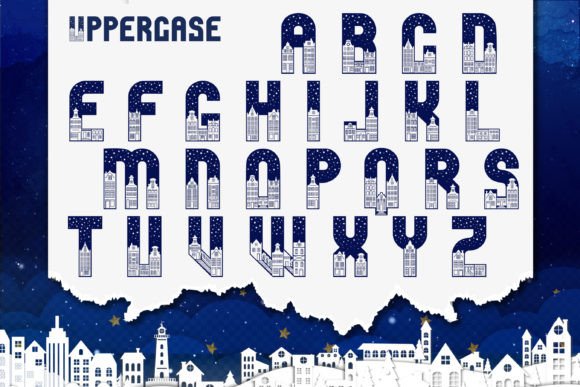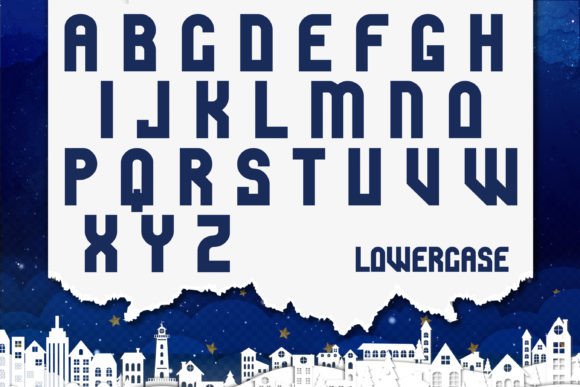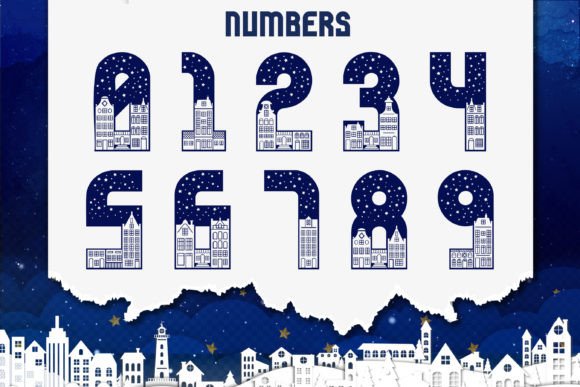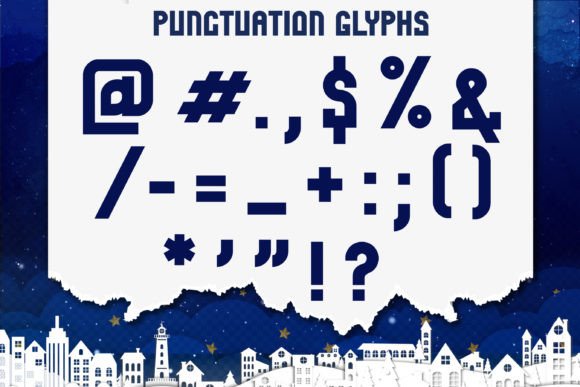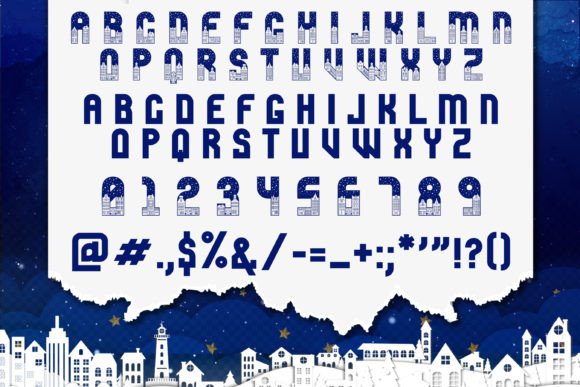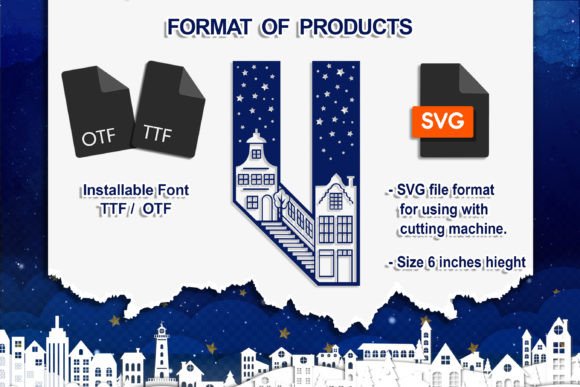
Dream Town Font: A Unique Geometric Typeface for DIY Handmade Craft Projects
Are you a designer or crafter looking for a unique and creative font to add a personal touch to your handmade craft projects? Look no further than the Dream Town Font, a geometric typeface that combines vintage building designs with the magic of the night sky. In this article, we’ll explore the features and benefits of the Dream Town Font, and how it can elevate your DIY projects to the next level.
What is Dream Town Font?
Dream Town Font is a decorative typeface that features geometric designs inspired by vintage buildings and the night sky. The font comes with bonus SVG files, making it compatible with cutting machines and perfect for DIY handmade craft projects. The unique design of the font is sure to add a touch of personality and whimsy to any project.
Key Features of Dream Town Font
• Geometric Design: The Dream Town Font features a geometric design that is both modern and nostalgic, making it perfect for a wide range of DIY projects.
• Vintage Building Inspiration: The font’s design is inspired by vintage buildings, adding a touch of classic charm to any project.
• Night Sky Elements: The font also features elements of the night sky, including stars and other celestial bodies, adding a touch of magic and wonder.
Benefits of Using Dream Town Font
So why choose the Dream Town Font for your DIY handmade craft projects? Here are just a few benefits of using this unique and creative font:
• Unique and Eye-Catching: The Dream Town Font is sure to add a touch of personality and whimsy to any project, making it stand out from the crowd.
• Perfect for DIY Projects: The font’s compatibility with cutting machines makes it perfect for DIY handmade craft projects, such as paper crafting, vinyl cutting, and more.
• Easily Customizable: The font’s geometric design makes it easily customizable, allowing you to adjust the design to fit your project’s needs.
• Inspires Creativity: The Dream Town Font’s unique design is sure to inspire creativity and spark new ideas for your DIY projects.
Project Ideas Using Dream Town Font
So what can you create with the Dream Town Font? Here are just a few project ideas to get you started:
• Custom Signs: Use the Dream Town Font to create custom signs for your home or business, adding a touch of personality and whimsy.
• Paper Crafting: The font’s compatibility with cutting machines makes it perfect for paper crafting projects, such as card making and scrapbooking.
• Vinyl Cutting: Use the Dream Town Font to create custom vinyl decals for your laptop, water bottle, or any other surface.
• DIY Home Decor: The font’s unique design makes it perfect for DIY home decor projects, such as creating custom wall art or decorative accents.
In conclusion, the Dream Town Font is a unique and creative typeface that is perfect for DIY handmade craft projects. Its geometric design, inspired by vintage buildings and the night sky, is sure to add a touch of personality and whimsy to any project. With its compatibility with cutting machines and easily customizable design, the Dream Town Font is a must-have for designers and crafters looking to add a personal touch to their projects.